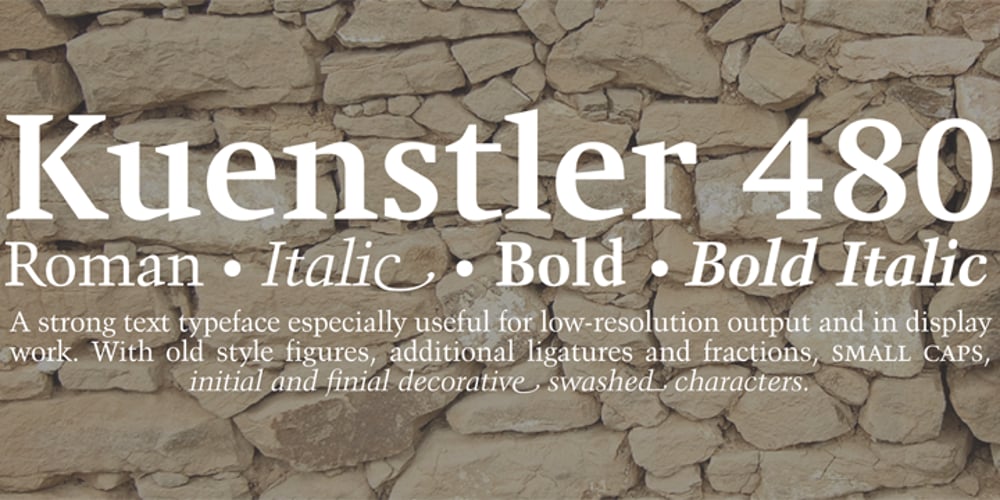
Kuenstler 480 Font Family was designed by Vladimir Yefimov, Georg Trump, Isabella Chaeva and published by ParaType. Kuenstler 480 contains 5 styles and family package options. The Bitstream version of Trump Mediaeval of Linotype, 1954-60, by Georg Trump, a prolific German type designer. It seems to be his best typeface. It has a vigorous and assumed oldstyle roman and italic that is the sloped roman, except for the letters a, e, f. With its crisp angularity and wedge-shapes serifs, Trump Mediaeval appears carved in stone. It is a strong text typeface that is highly legible and especially useful for low-resolution output. It is useful in display work too. Cyrillic version developed for Paratype by Vladimir Yefimov and Isabella Chaeva and released in 2010. Cyrillic italics maintain the main feature of Trump Mediaeval to be the sloped roman, except for the letters г, д, и, й, n, т. There are old style figures, additional ligatures and fractions available at all styles and small caps at the Roman 55. Black style was added in 2011 by Vladimir Yefimov.